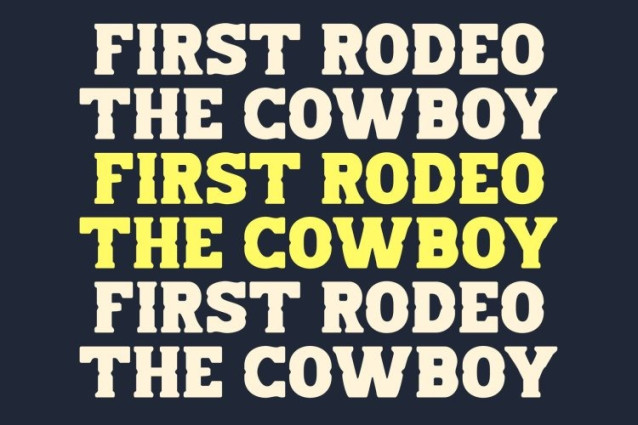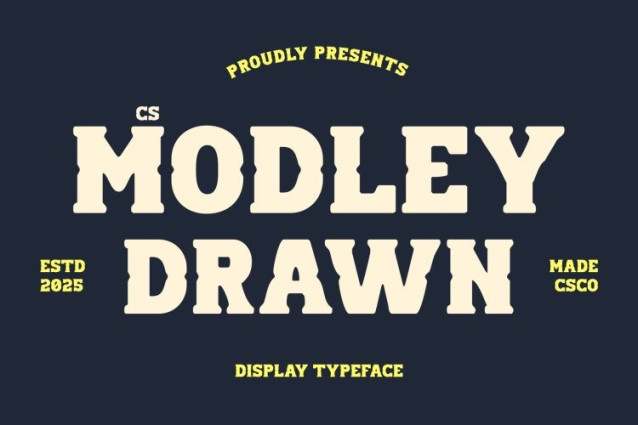
CS Modley Drawn Font This is a rugged display font inspired by the bold spirit of the Wild West. Drawing from classic frontier signage and old western posters, its wide letterforms and strong slab-like serifs deliver a powerful, confident presence. The font instantly evokes images of cowboy towns, dusty roads, and vintage saloons, making it rich with western atmosphere and character.
Slab Serifs with Soft Hand-Drawn Shapes
The sturdy slab serifs give this font its solid western foundation, while the hand-drawn effect softens the overall form. Each character features subtle irregularities and organic curves that add warmth and individuality. This balance between strength and softness creates unique letterforms that feel handcrafted rather than rigid, enhancing its authentic, vintage appeal.
Rugged Personality with Artistic Texture
The drawn texture brings an artistic layer to the font, giving it depth and personality. These gentle imperfections add a human touch, transforming bold western shapes into expressive characters full of charm. The result is a font that feels both tough and approachable, capturing cowboy grit with a creative edge.
Perfect for Posters, Branding, and Vintage Themes
This font is ideal for posters, branding, packaging, logos, and vintage or western-themed projects. Whether used for event promotions, product labels, or editorial headlines, it delivers unmistakable western flair with a unique, handcrafted look that makes every design stand out.